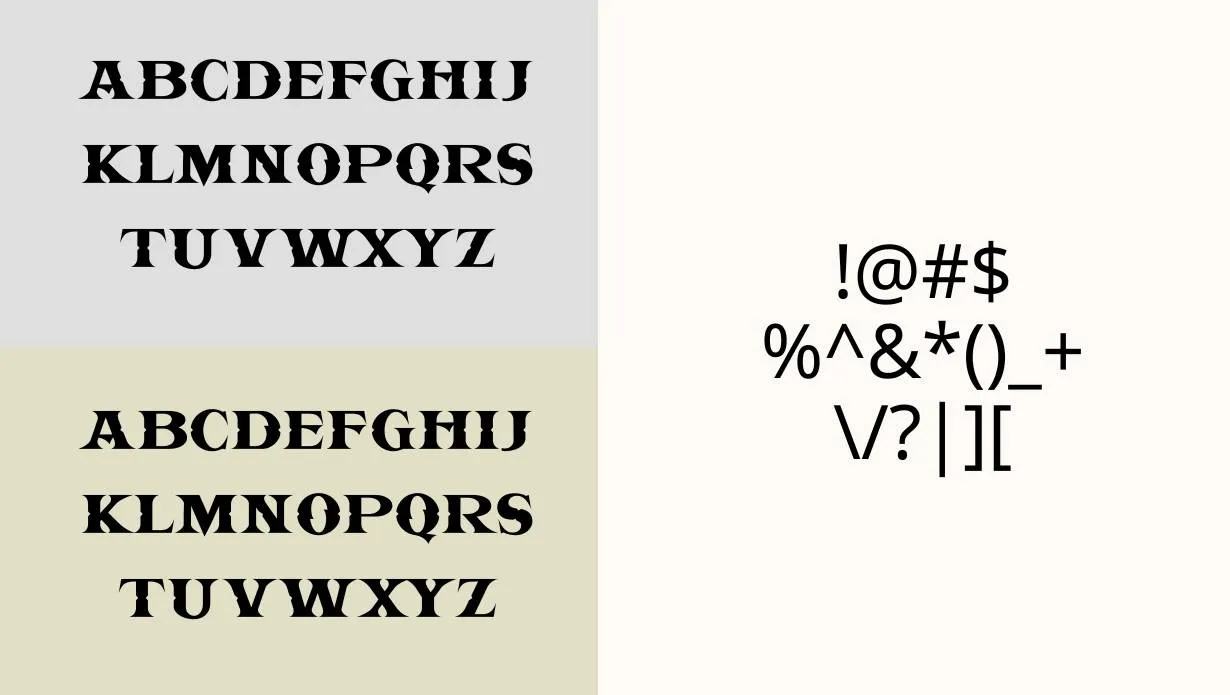
Kidcool Dragon Font is a playful and whimsical style that feels like a magical adventure. Its fun, creative letters bring a sense of excitement and joy to any text. This font often comes in TTF and OTF file formats, ensuring compatibility across various platforms.
| Name | Kidcool Dragon Font |
| Designer | Beau Williamson |
It’s perfect for children’s books or game-related content, as its playful appearance adds a touch of wonder and imagination to the writing. The unique texture of this typeface is a magnet for creators, and there is a selection of other fantastic typefaces, like Lipstick Font and handel gothic font, for you to explore.